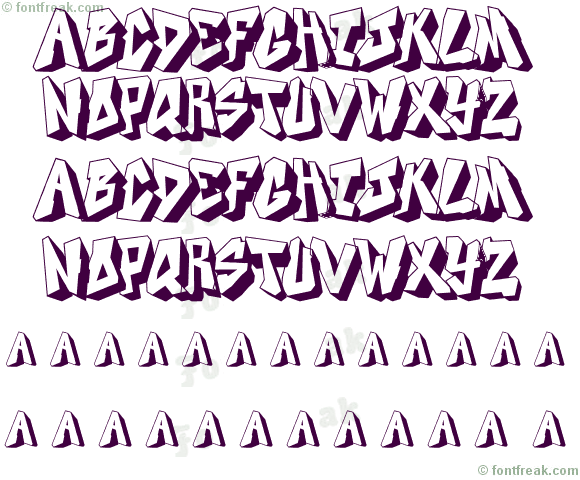
DOCALLISME ON STREET
About DOCALLISME ON STREET
DOCALLISME ON STREET is a striking display font designed by Docallisme HAS, capturing an urban, street-inspired aesthetic. This font falls into the decorative category, showcasing bold, angular letterforms that exude a sense of dynamism and energy. The unique visual style is characterized by a strong stroke weight and high contrast, with sharp edges that make each character stand out. The spacing is intentionally designed to enhance readability while maintaining a lively and engaging appearance. The decorative elements, including exaggerated angles and playful forms, contribute to its street art vibe, making it a perfect choice for projects that aim to grab attention.
This font is particularly well-suited for a variety of creative applications. It shines in the realm of streetwear branding, making it ideal for t-shirt designs and promotional materials. Additionally, DOCALLISME ON STREET can elevate the look of event posters, especially for music festivals or art shows, where a bold statement is essential. Its distinctive character also makes it a great fit for restaurant menus, especially for casual eateries that wish to convey a relaxed and trendy atmosphere. Graphic designers, small business owners, and content creators will find this font invaluable for projects that require a lively, urban flair.
What sets DOCALLISME ON STREET apart is its ability to blend artistic expression with functionality. It captures the essence of street culture while remaining versatile enough for various design needs. The DOCALLISME ON STREET font free download offers users the opportunity to infuse their projects with a unique voice, ensuring that their designs resonate with an audience that appreciates creativity and individuality. With its eye-catching style and practical applications, this font is a must-have for anyone looking to make a memorable impact.